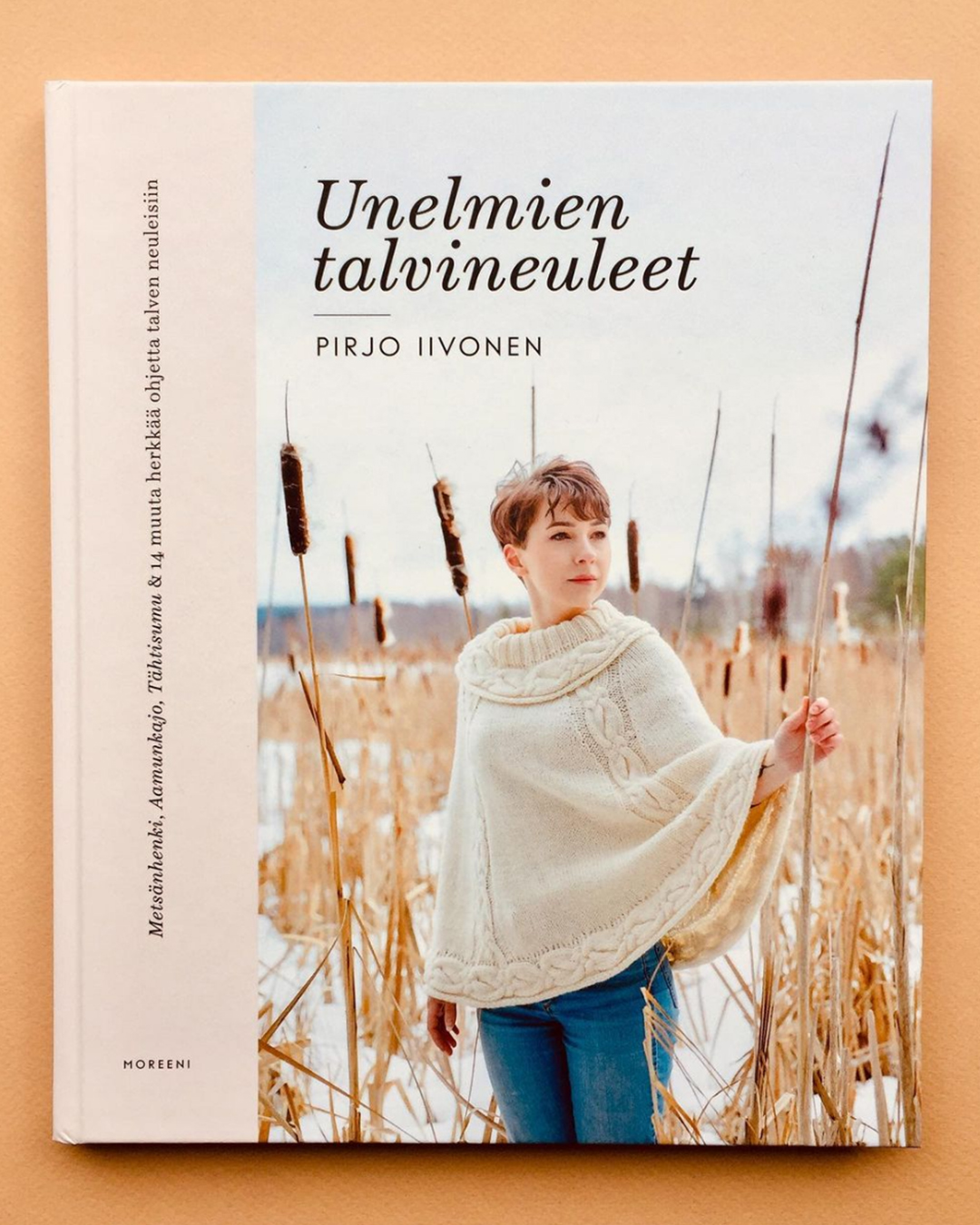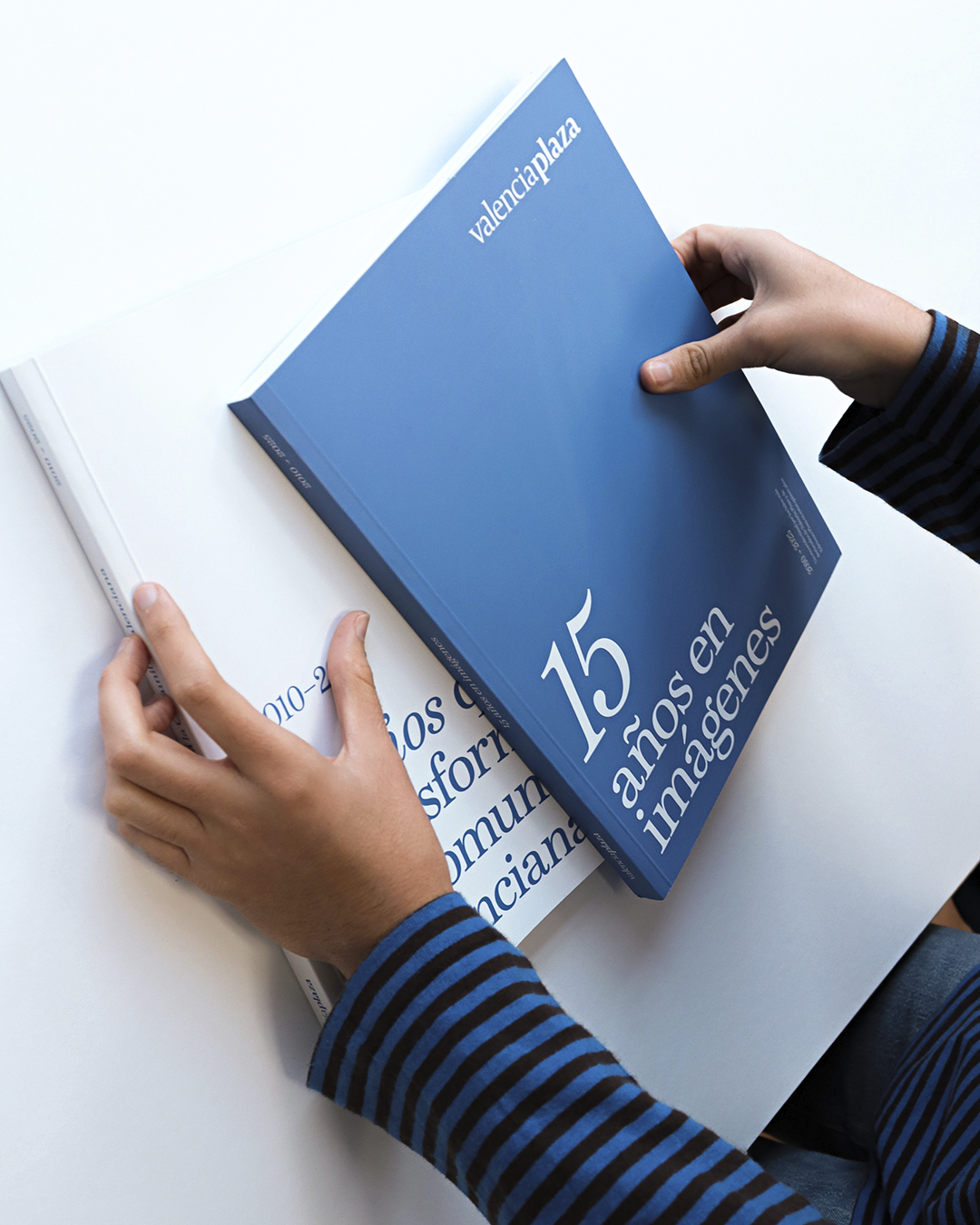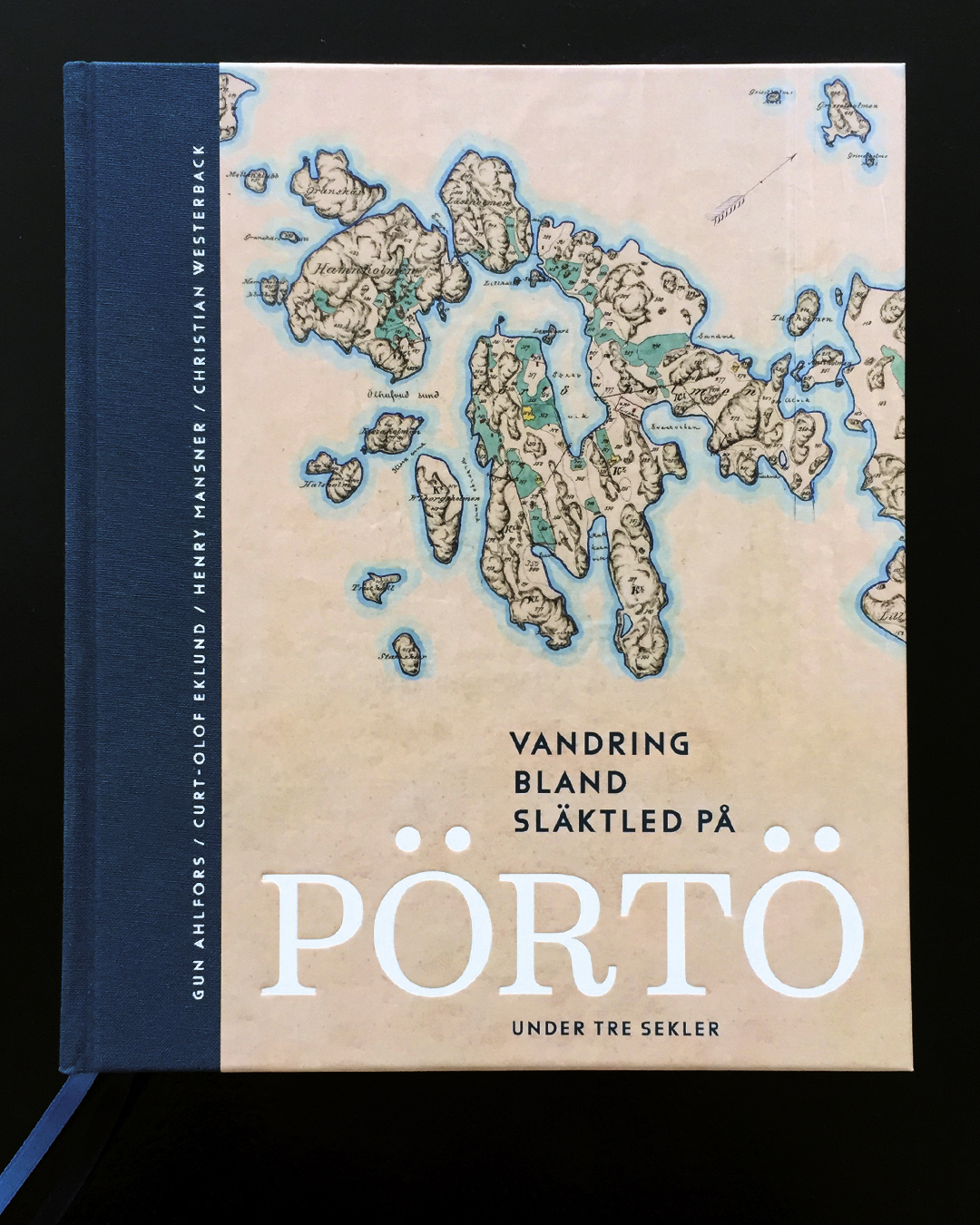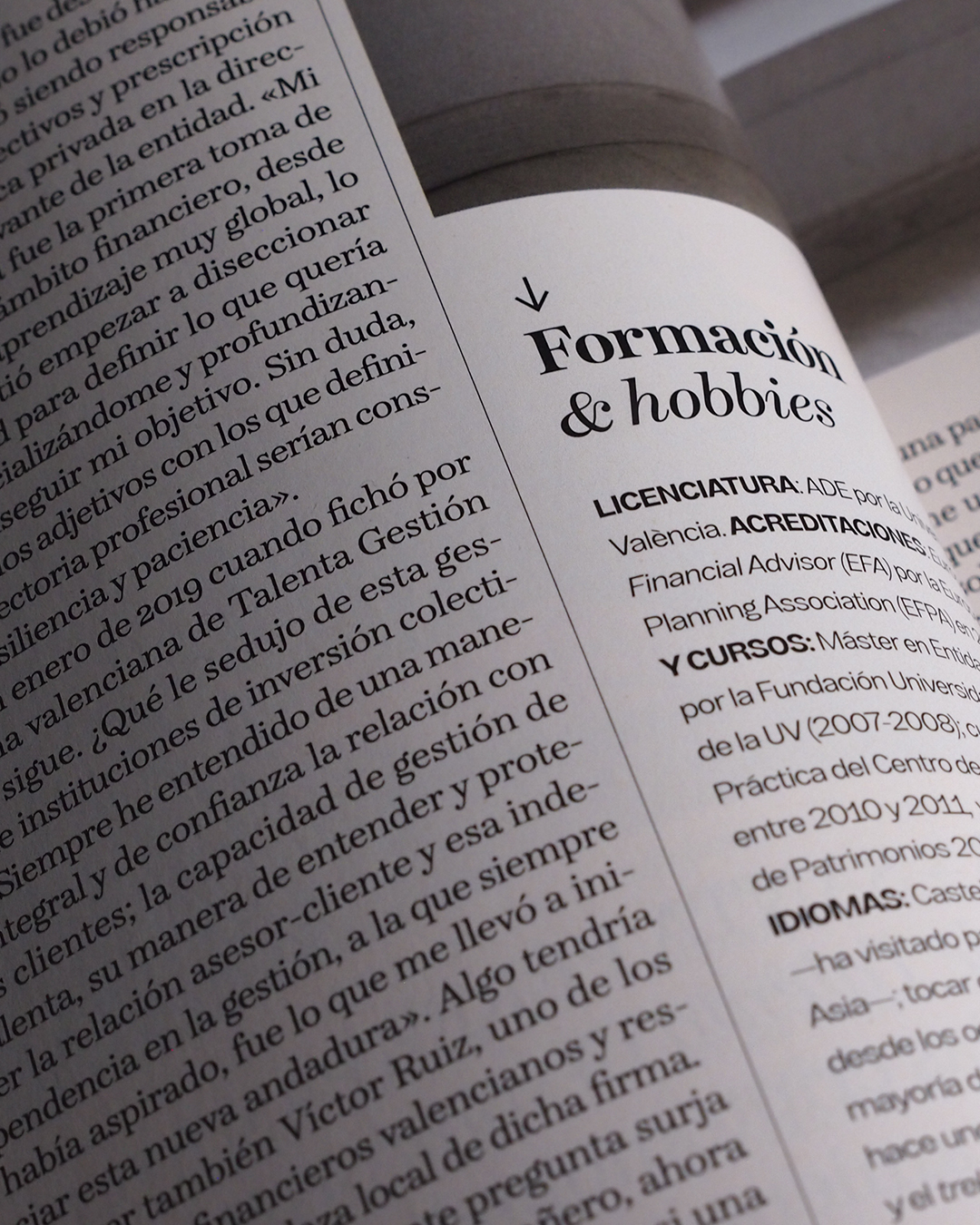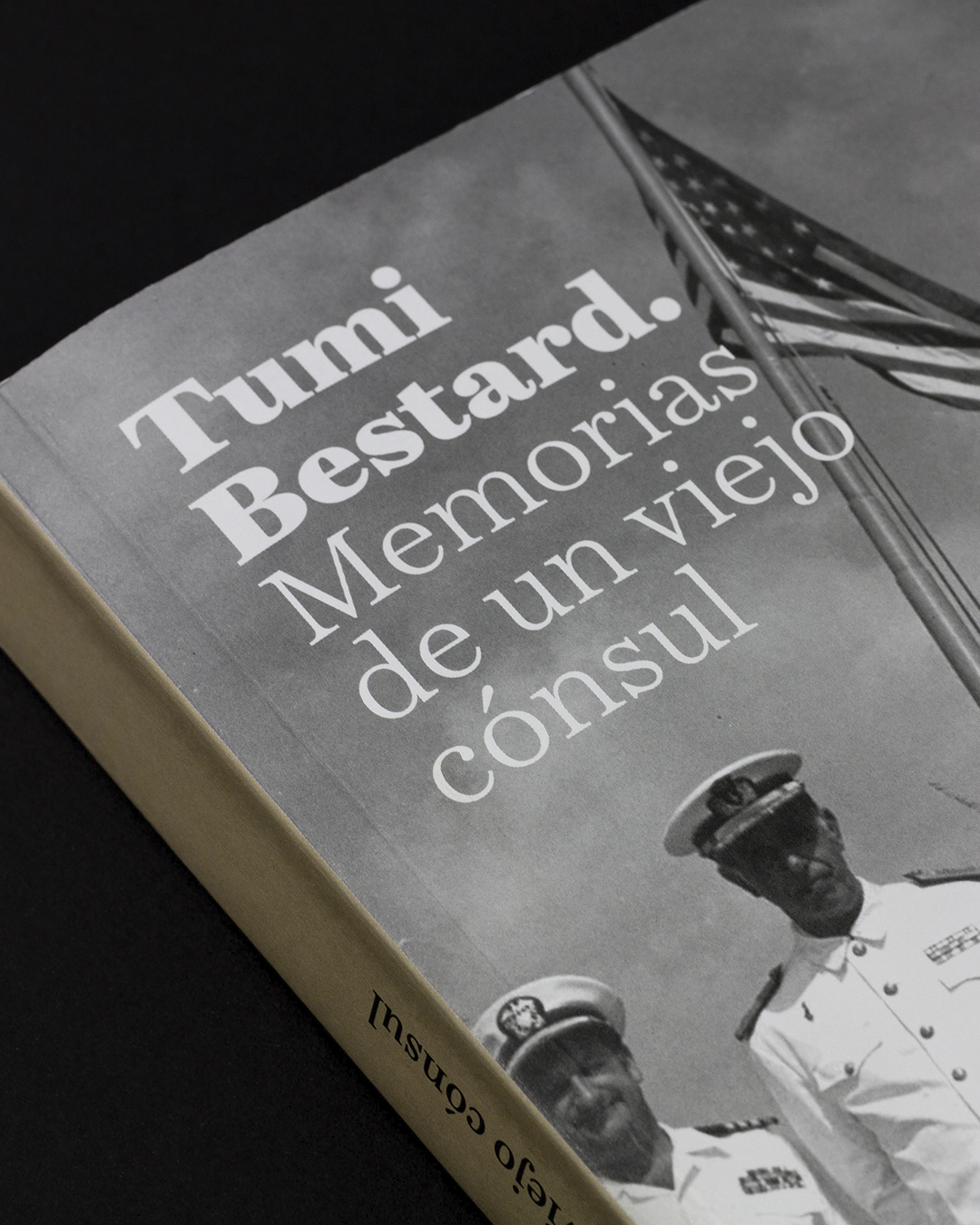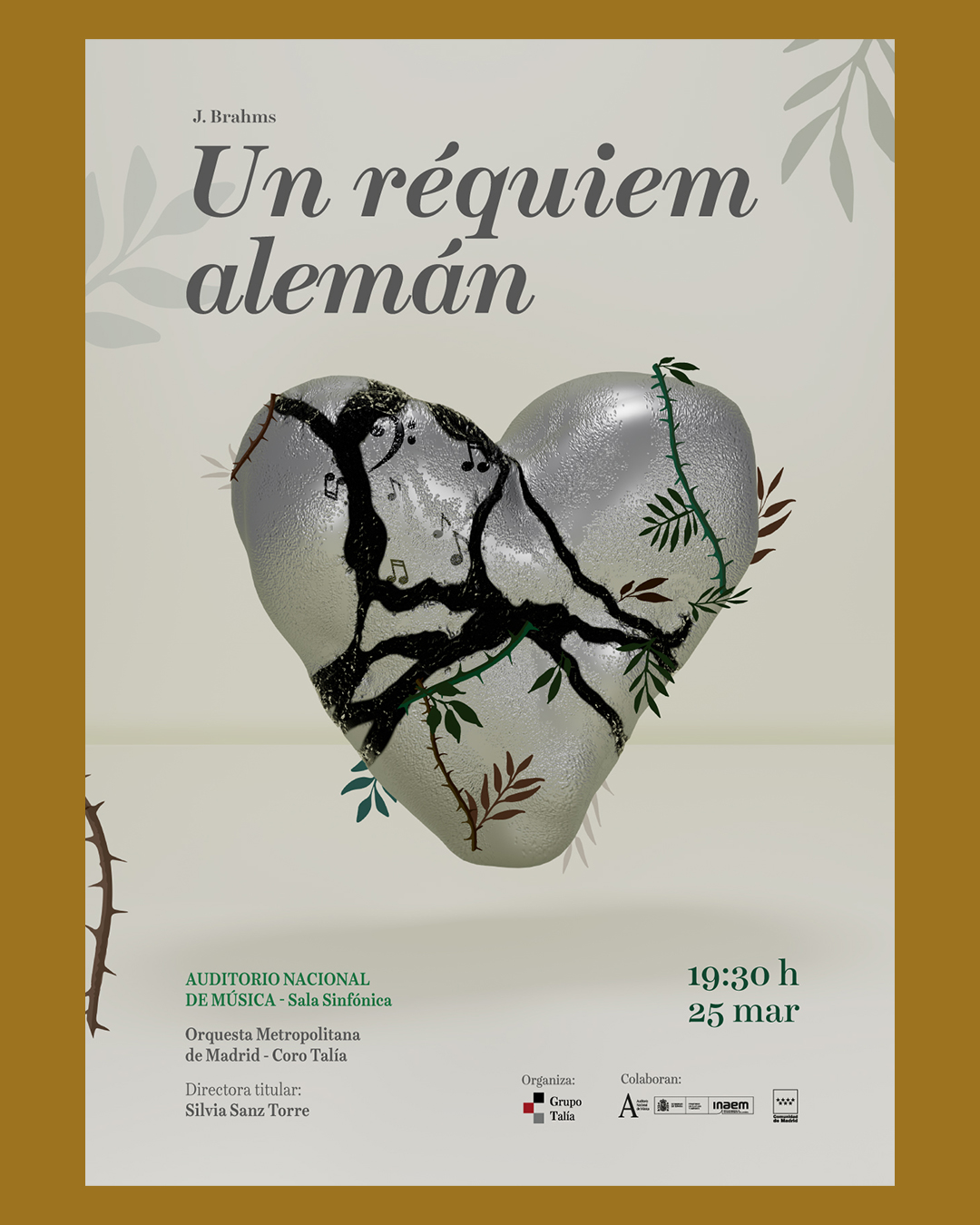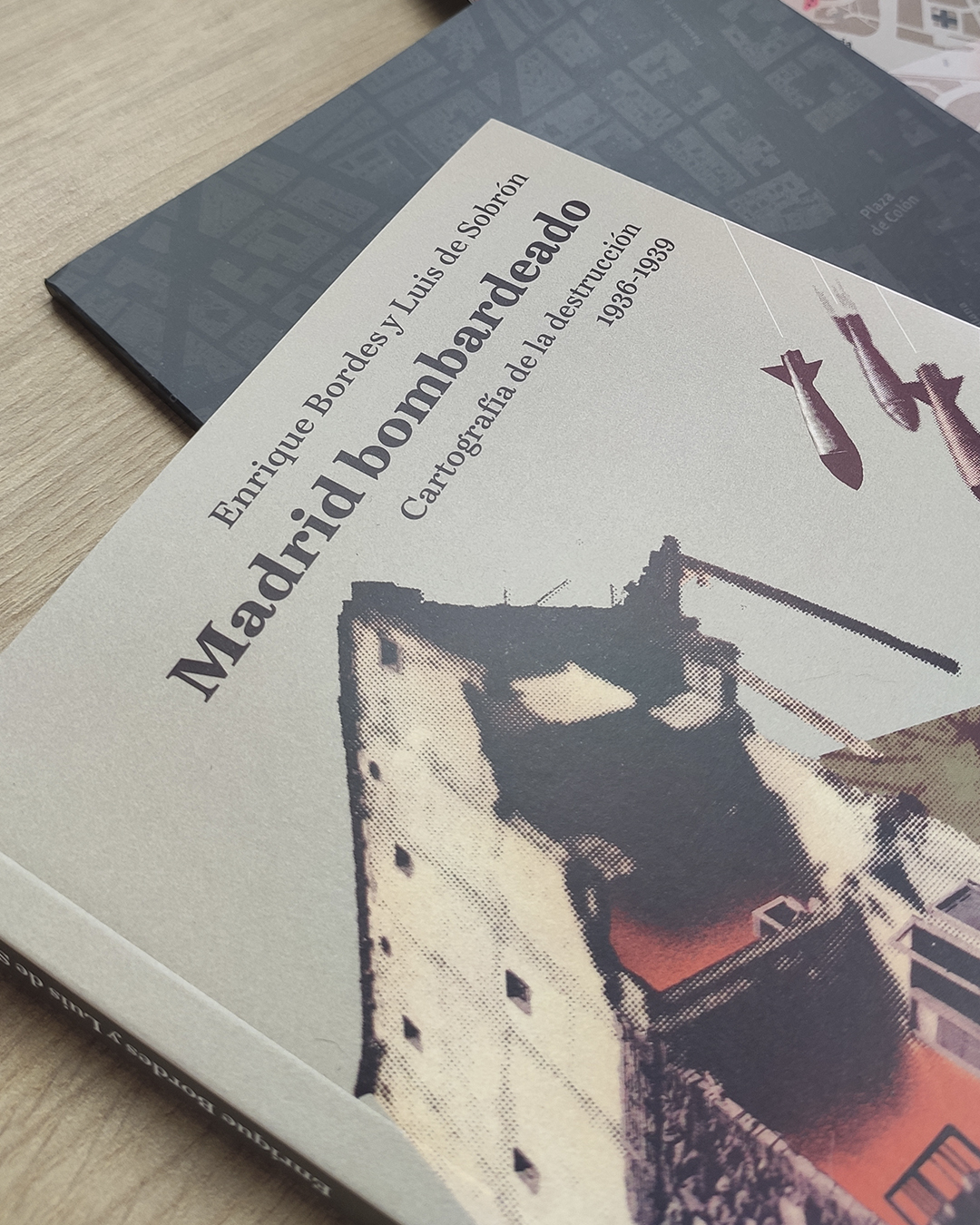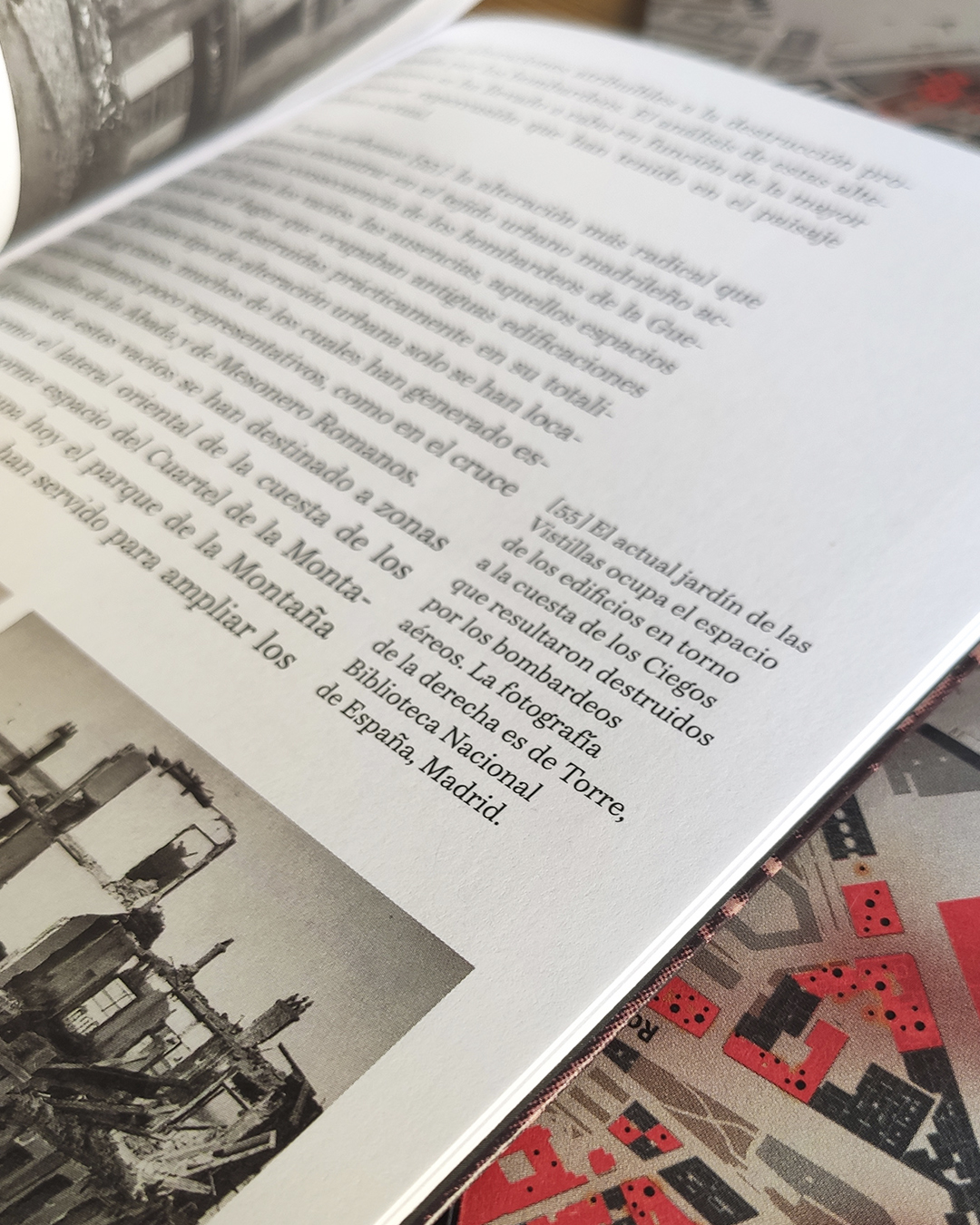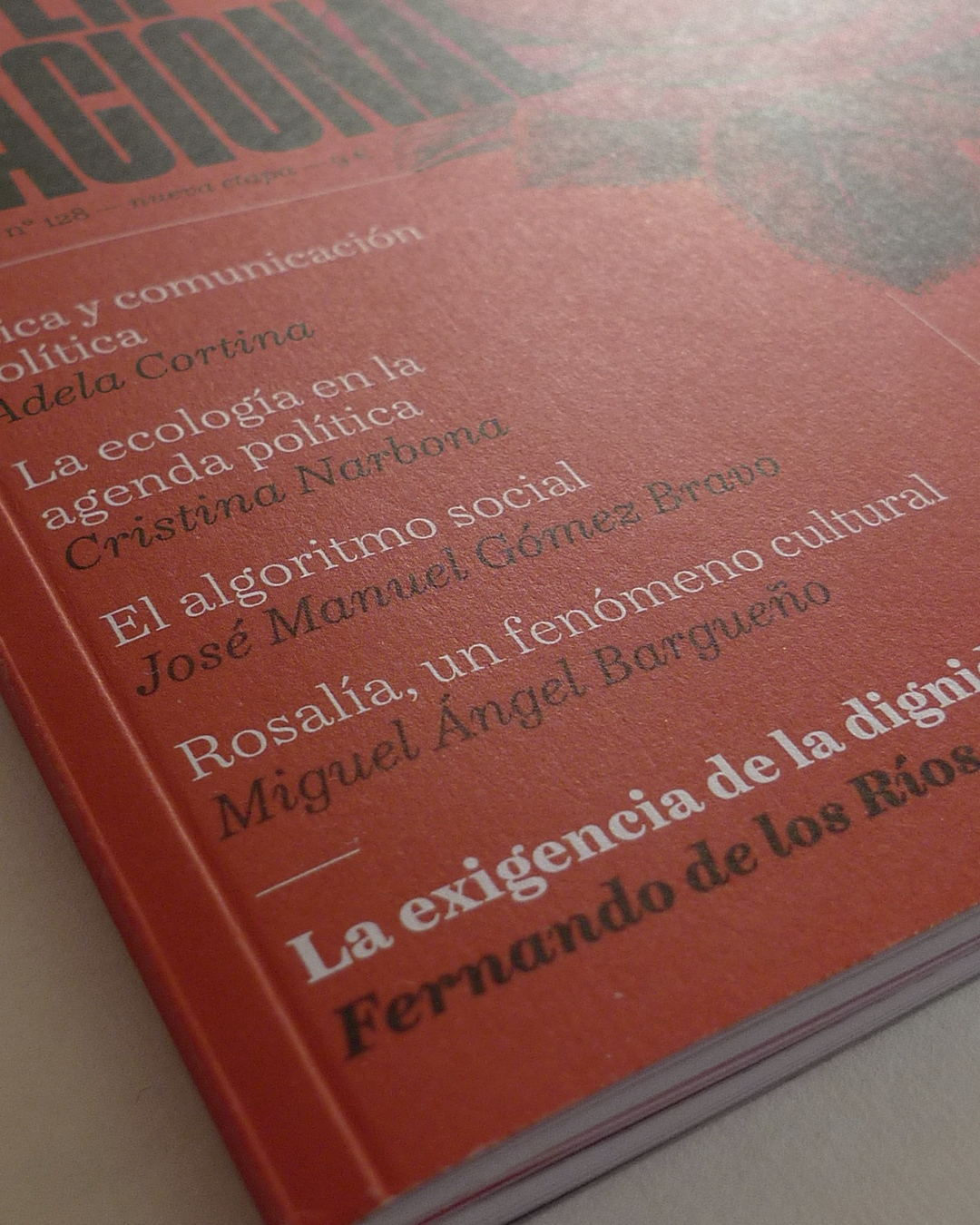
Schotis
If you need a typeface suitable for the most elegant and hard work, you will fall in love with Schotis family, your true Scotch Roman style workhorse.
Schotis Text is designed for perfect reading on running texts, leaving the setting of big sizes for Schotis Display.
Each optical size family has seven weights plus matching italics, with 1100 glyphs per font. With a very extended character set for Latin based languages including Vietnamese, Schotis shows all its potential with OpenType-savvy applications. Every font includes small caps, ligatures, old-style, lining, proportional and tabular figures, superscript, subscript, numerators, denominators, and fractions.
Schotis family is based in Scotch Roman style but designed from scratch, with a more contemporary and not nostalgic look.
The Scotch Romans were one of the most used letters during the 19th and early 20th century, but they don’t have their own place in the main typographical classifications. They appeared at the beginning of the 19th century with Pica No. 2 in the catalog of William Miller (1813) and assumed the British route towards high contrast and vertical axis modern Romans. In opposition to the continental route of Fournier, Didot, and Bodoni, the English way opted for a wider, more legible letter also resistant to bad printing conditions.
Schotis
Schotis Text 7 weights + italics. 14 fonts
Schotis Display 7 weights + italics. 14 fonts
Glyphset 1102 glyphs
Designed by Juanjo López